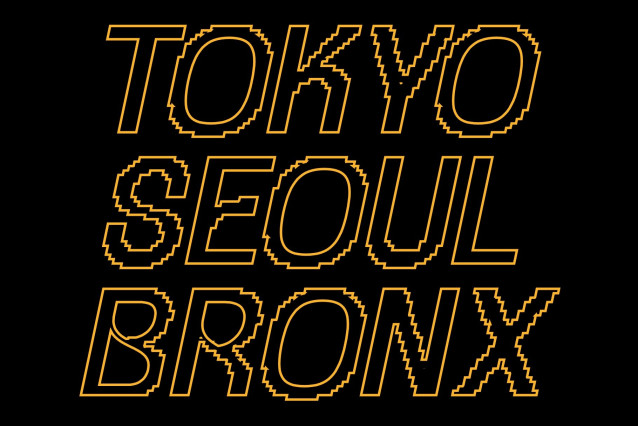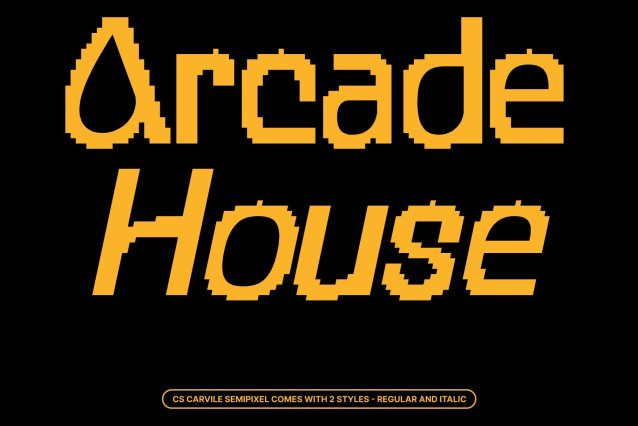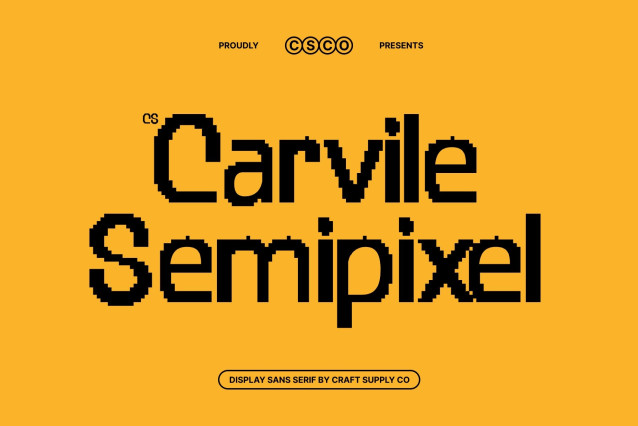
CS Carvile Semipixel – Modern Sans Serif with Smooth, Relaxed Curves
Smooth Modern Shapes with Distinctive Curves
This is a modern sans serif font that blends clean geometry with refined, flowing curves to create a fresh and distinctive visual identity. Its smooth letterforms move beyond the rigid feel of traditional minimalist typography, introducing a softer and more expressive personality. Every character feels carefully sculpted, delivering a sleek contemporary appearance that remains visually engaging and effortlessly modern.
Semi Pixel Style with Refined Digital Character
Inspired by pixel-based forms, this font incorporates subtle square details combined with smooth modern curves, creating a balanced semi pixel aesthetic. The pixel influence gives the font a digital and futuristic touch, while the softened edges maintain a relaxed and approachable feel.